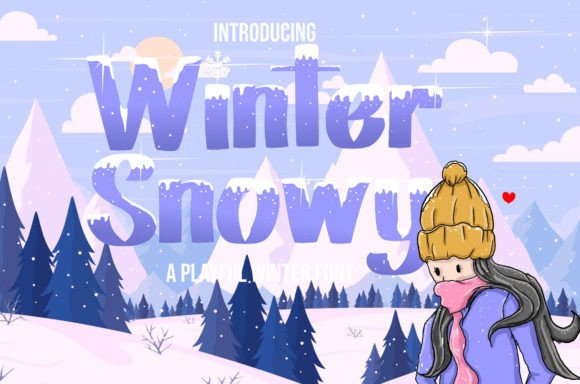
Immerse yourself in a winter wonderland of enchanting typography with the Winter Snowy Font, a captivating display font that brings the magic of Christmas to life. Crafted by the skilled hands of Cikareotype, this font exudes warmth and cheer, inviting you to create captivating posters that evoke a sense of joy and celebration.
With its playful and friendly demeanor, the Winter Snowy Font transports you to a snowy landscape where every character is adorned with a delicate dusting of snow, adding an extra touch of festive charm. This unique font is a true masterpiece, perfect for capturing the essence of the holiday season with its whimsical and heartwarming style.
Unleash your creativity and let the Winter Snowy Font guide you in crafting stunning Christmas posters that radiate holiday spirit. Let your words dance across a canvas of snow-kissed landscapes, evergreen trees, and twinkling lights. This font is not just a collection of letters; it's a gateway to a world where imagination thrives and the magic of Christmas comes alive.
Whether you're a seasoned designer or a creative enthusiast, the Winter Snowy Font is your perfect companion in spreading holiday cheer. Its captivating characters will elevate your designs to new heights, leaving a lasting impression on your audience.
Embrace the magic of the season and embark on a typographic adventure like no other. Let the Winter Snowy Font be your guide as you create masterpieces that warm hearts and ignite the spirit of Christmas. Dive into a world of festive typography today and let your creativity shine!